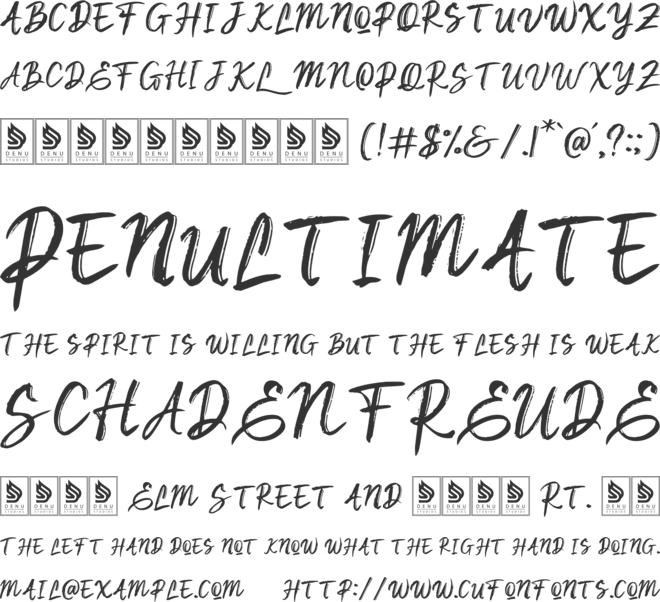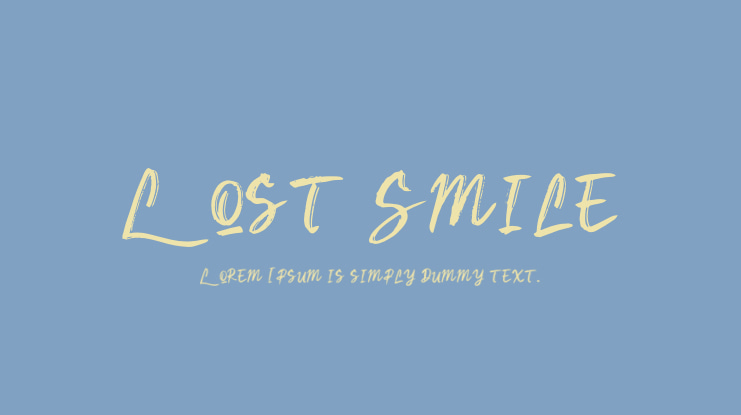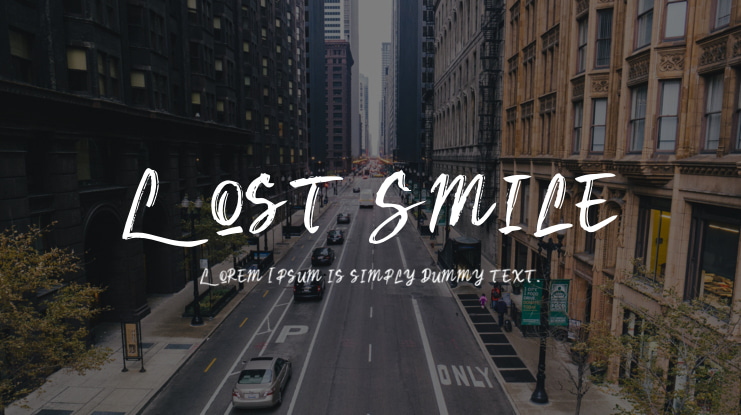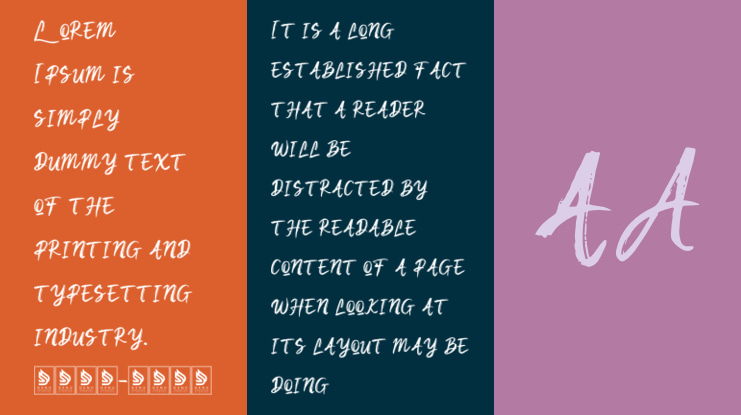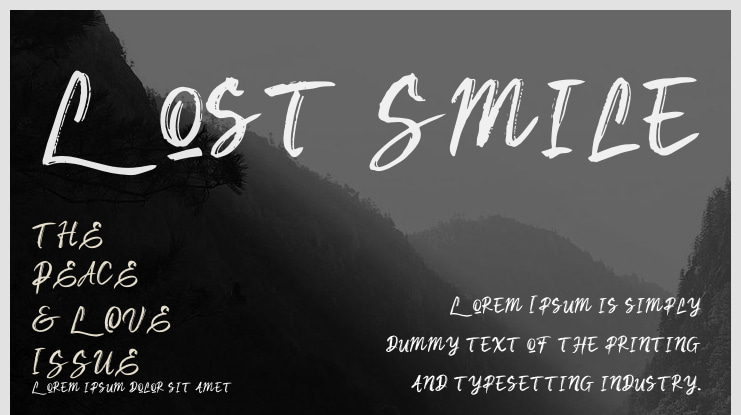
Lost Smile Font
Lost Smile | Brush Font is suitable for a variety of projects including logos, branding, homeware designs, product packaging, mugs, quotes, posters, shopping bags, t-shirts, book covers, name cards, invitation cards, greeting cards, labels, photography, watermarks, special events, and all other projects that need a brush font touch.